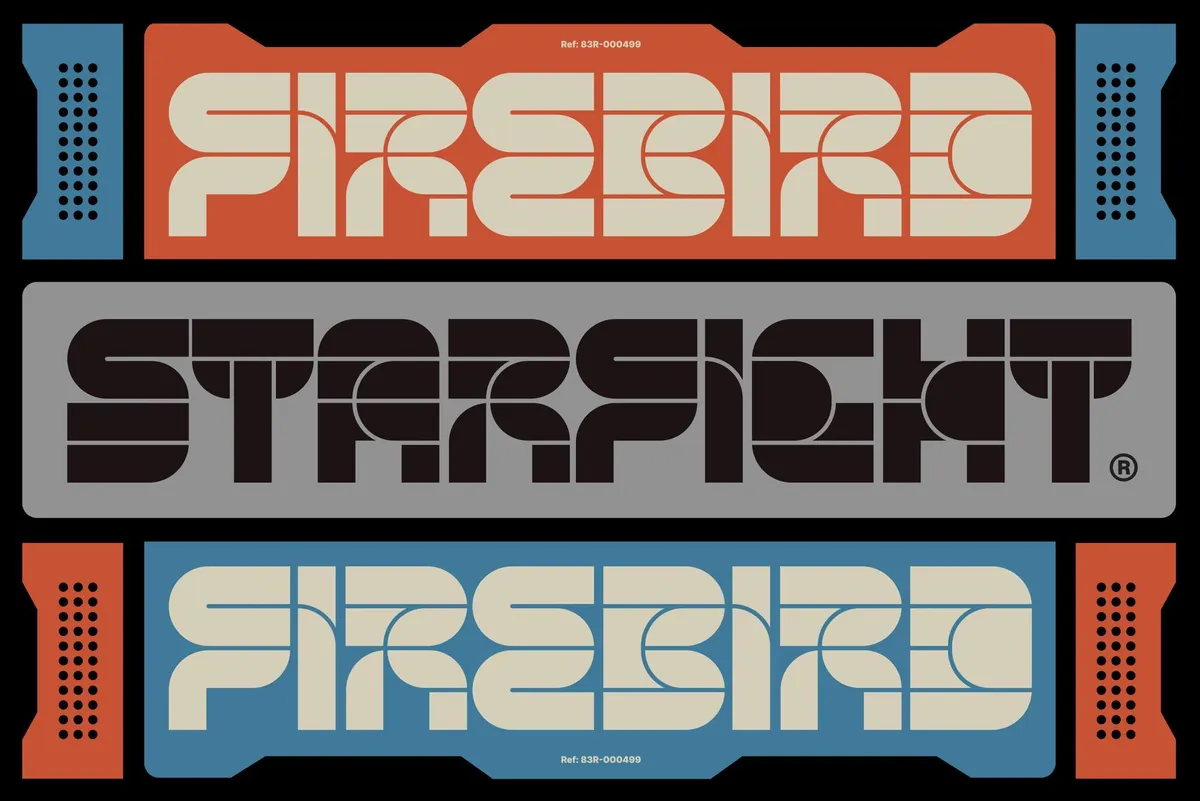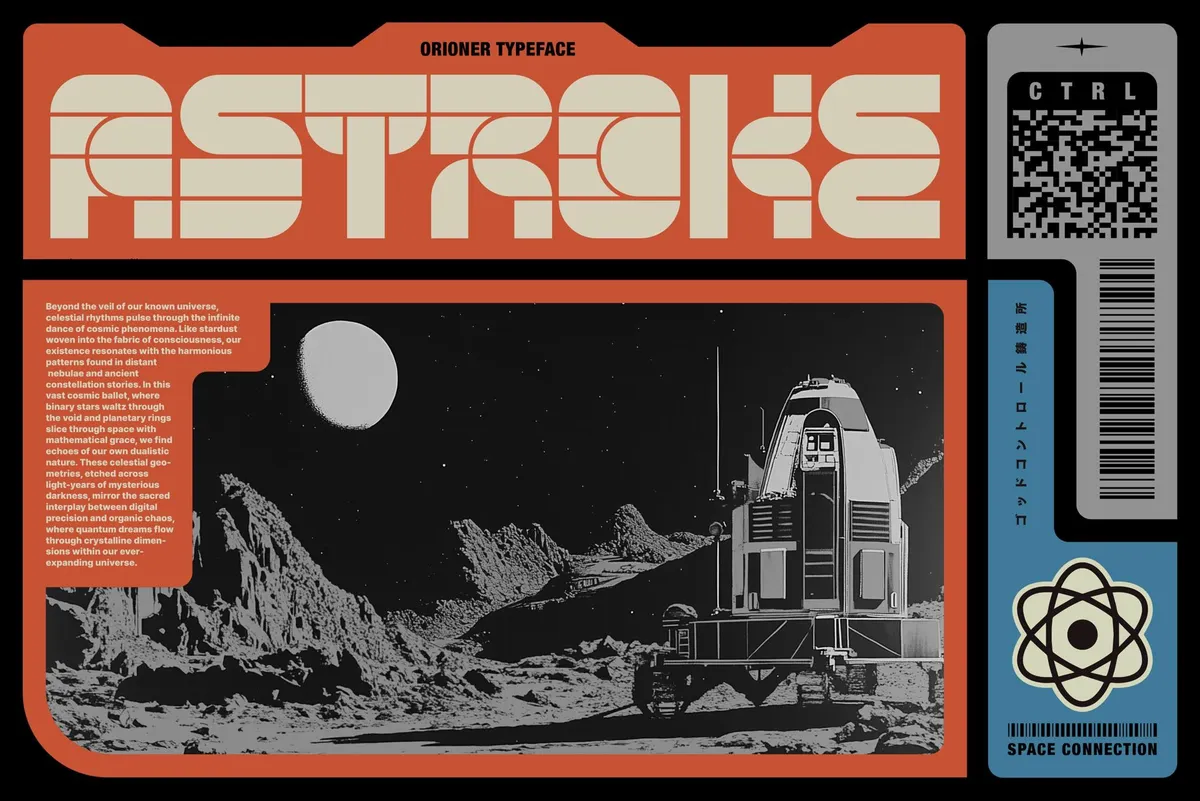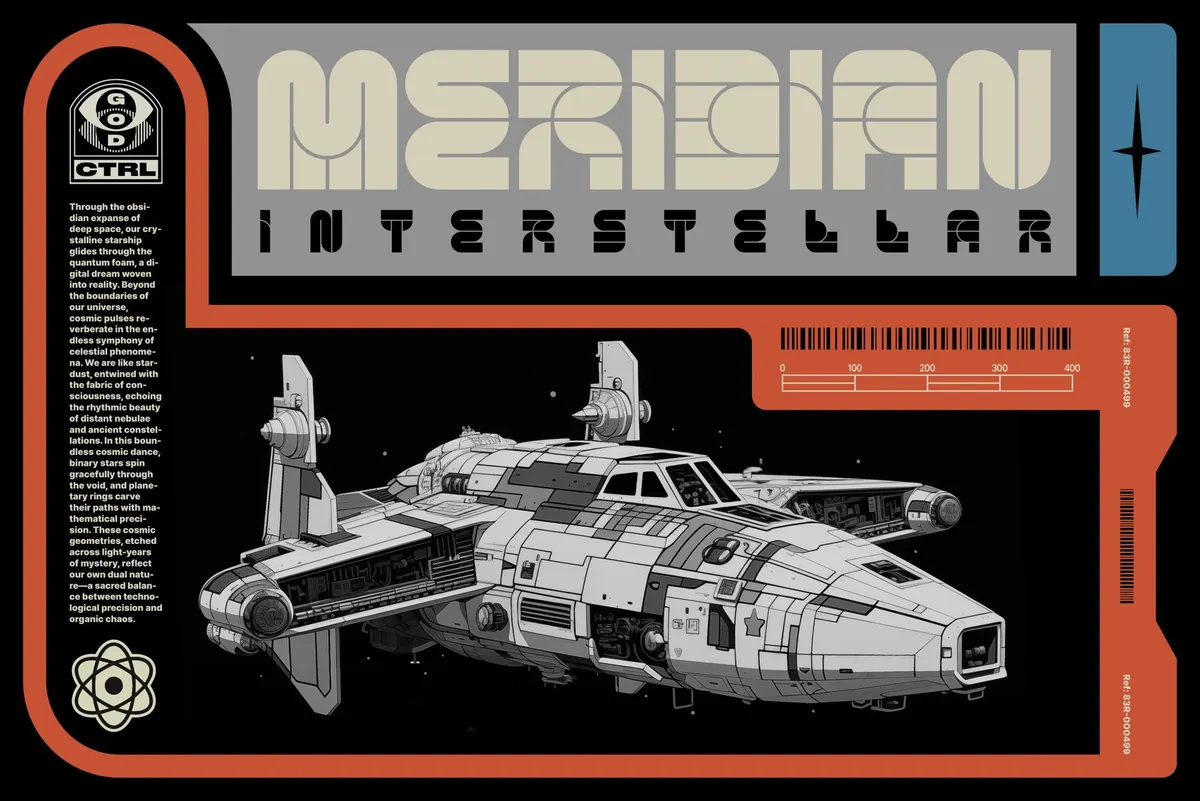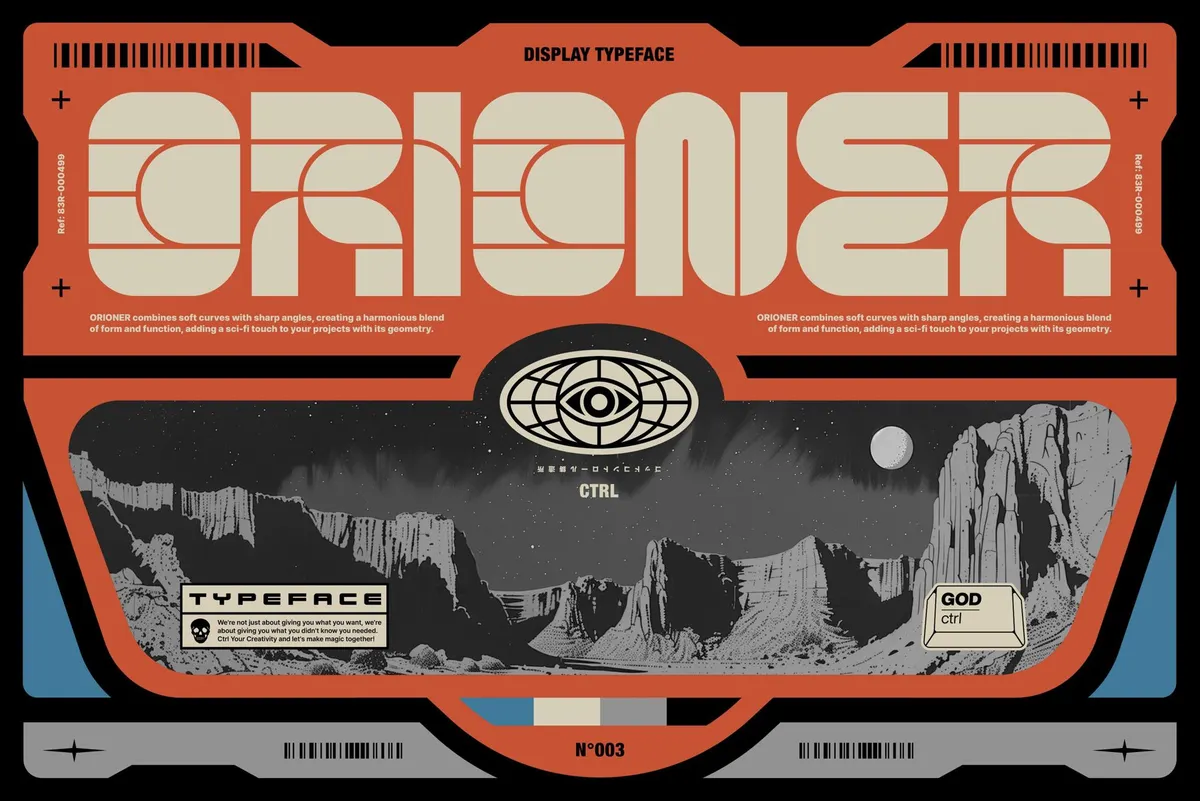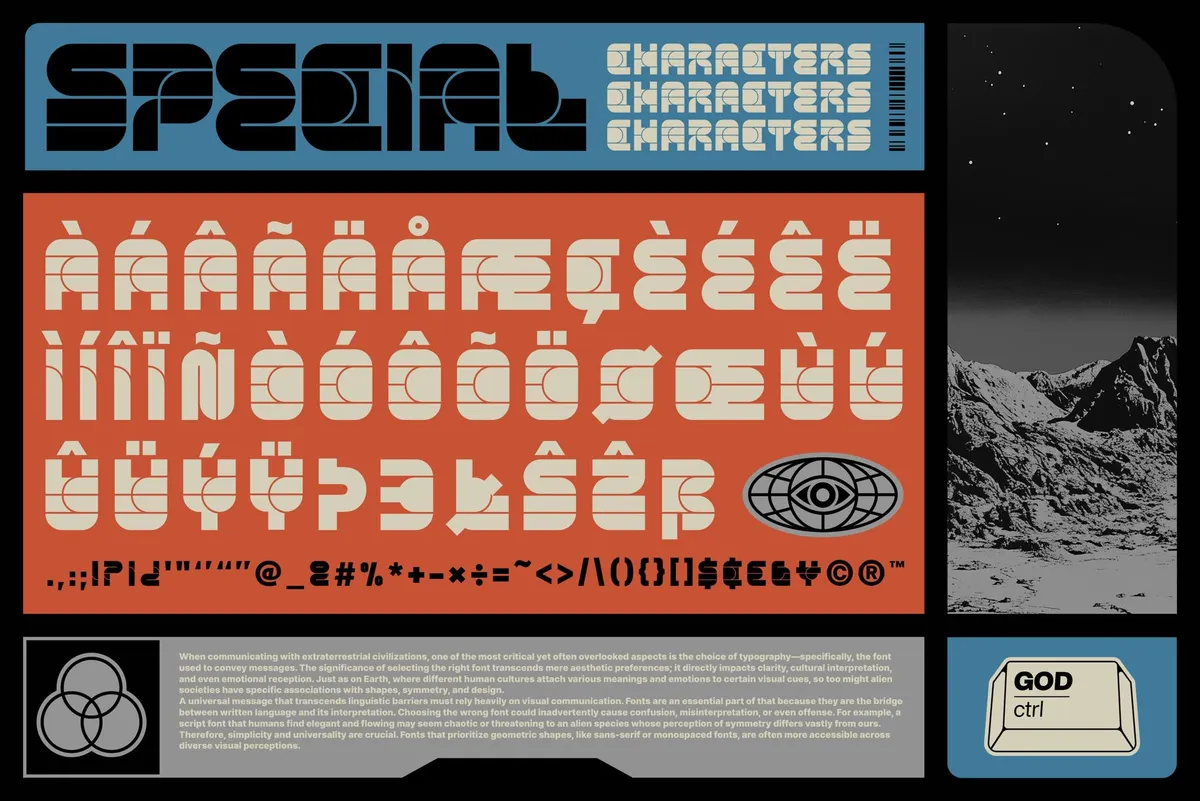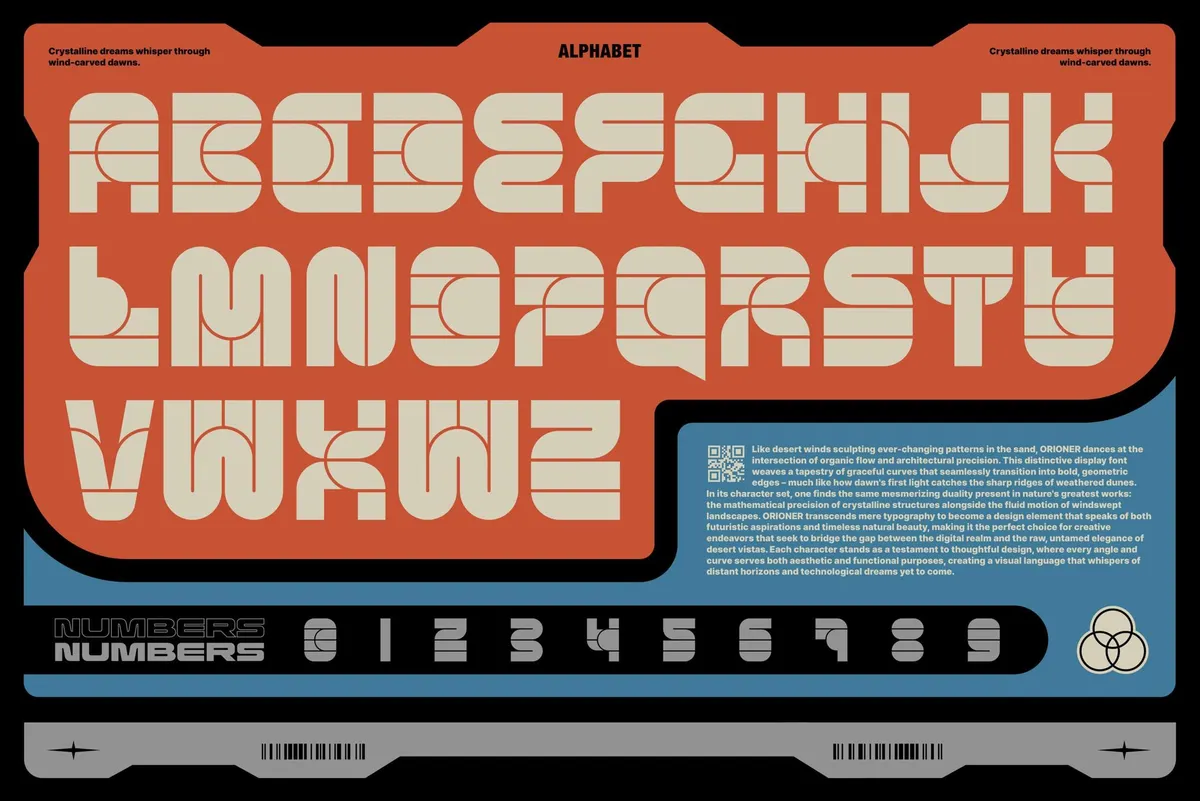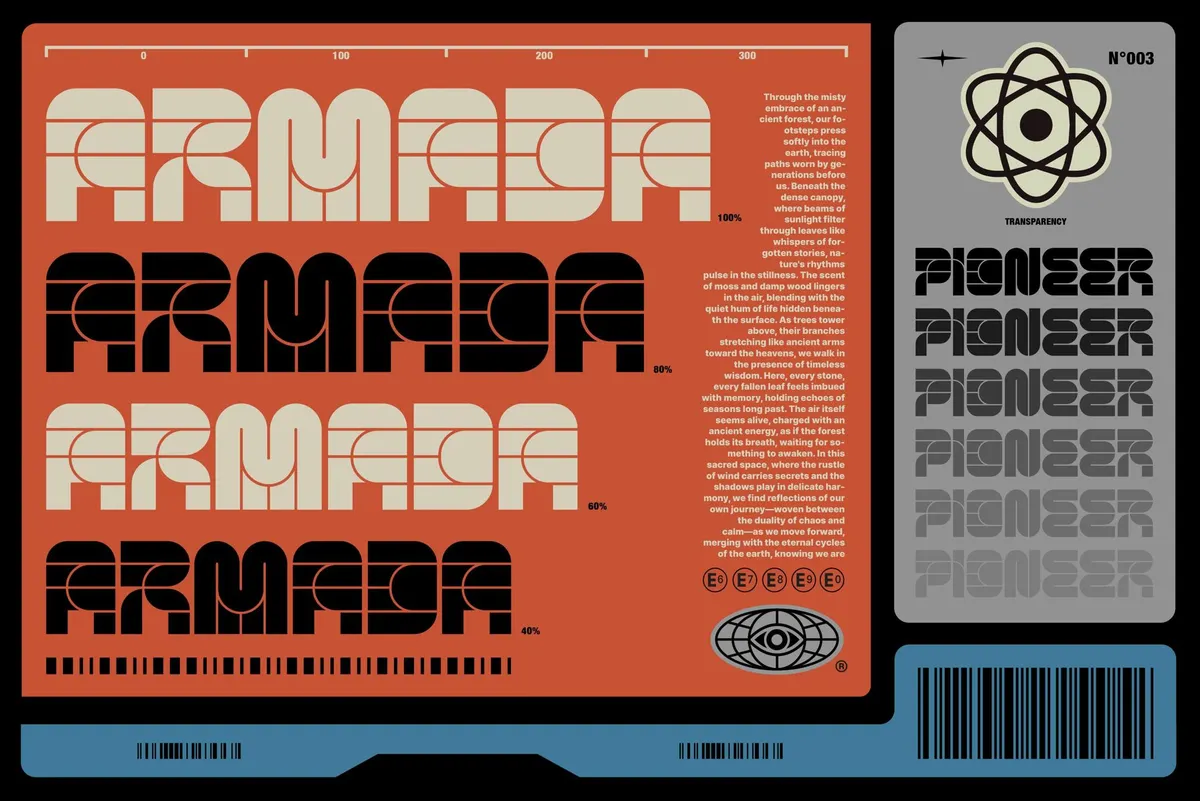
Orioner Display Typeface
Orioner feels like it beamed straight from a retro-futurist space station co-designed by Isaac Asimov and Konstantin Tsiolkovsky’s grandkids. There’s something wonderfully engineered about its architecture: precise, symmetrical geometry tempered with soft orbital curves, like a blend of Soviet cosmonautics and mid-century sci-fi optimism.
The font speaks in modular panels, like signage found deep inside a 1970s vision of a lunar base — practical yet poetic. It’s got the Brutalist-meets-Bauhaus thing going on, reinterpreted through a digital lens. Orioner features a whole of 190 characters: the standard set, plus special characters and punctuation. And the detailing? Feels like it’s been hand-calibrated for a dystopian propaganda poster or a UI dashboard on a terraformed Mars.